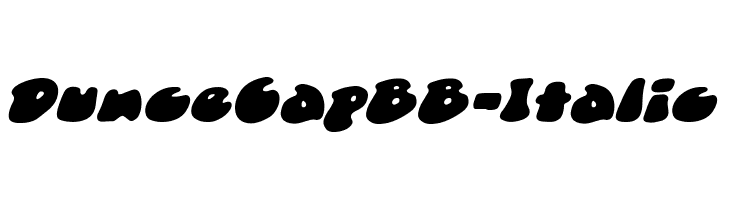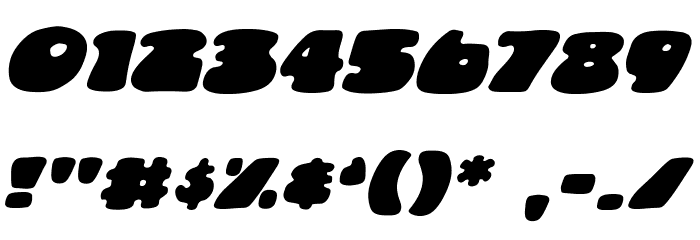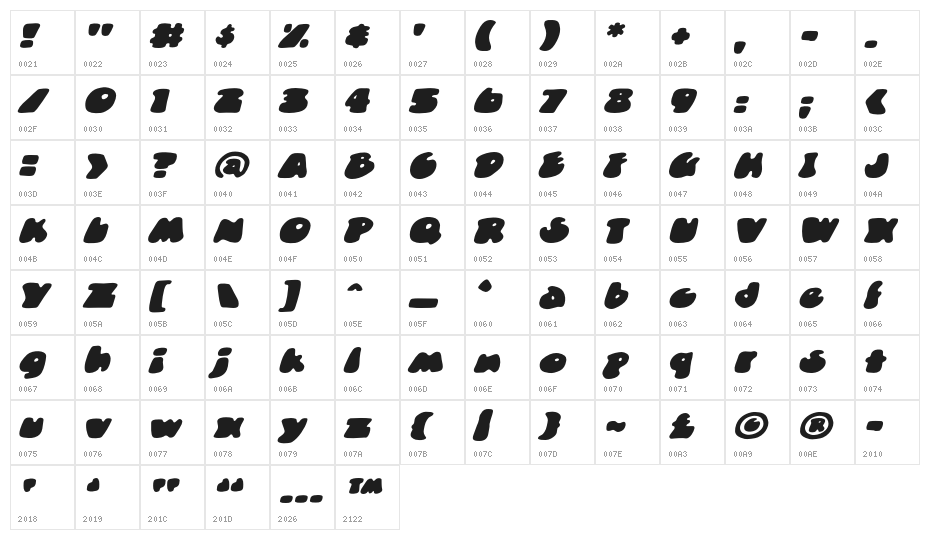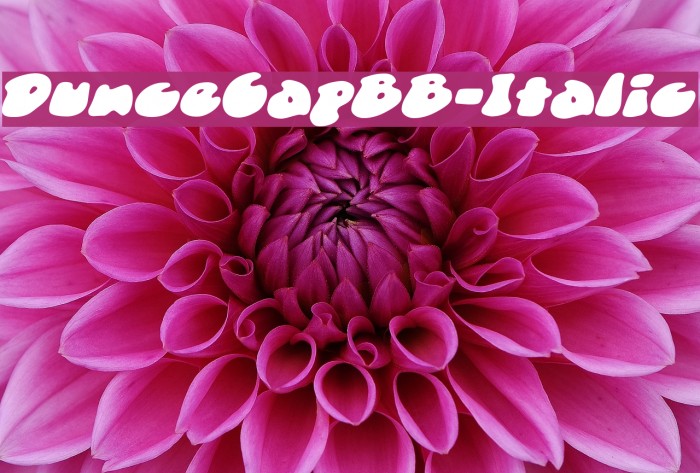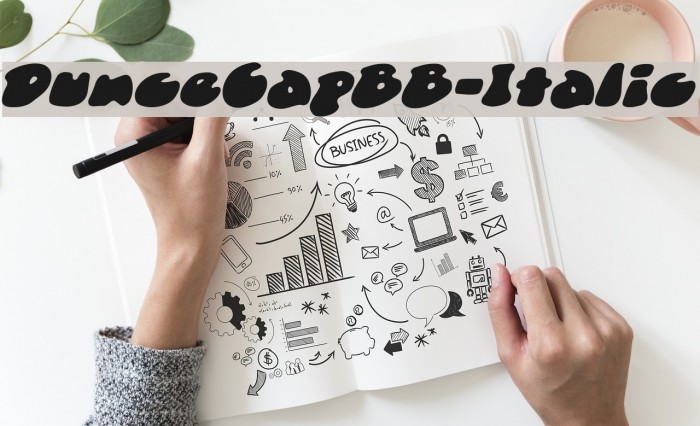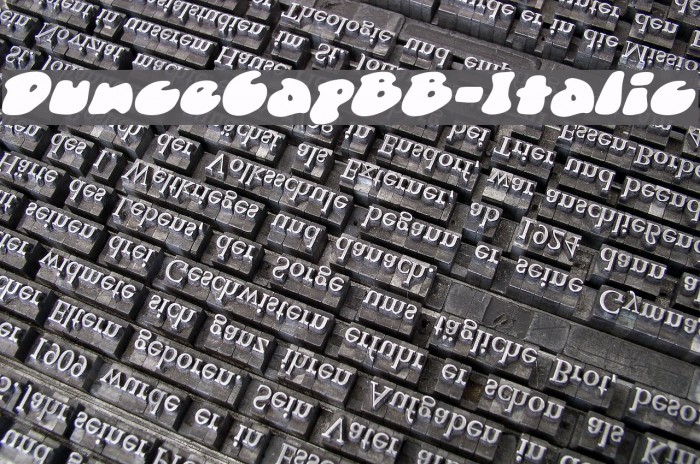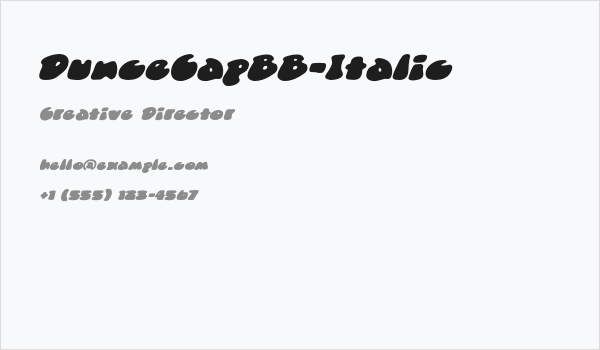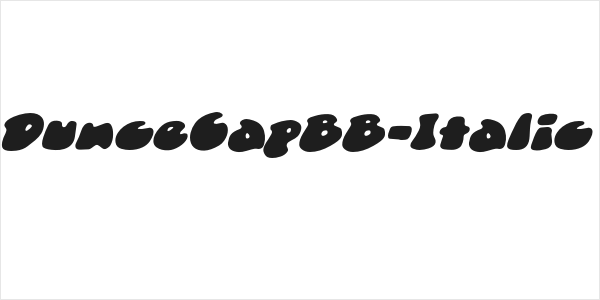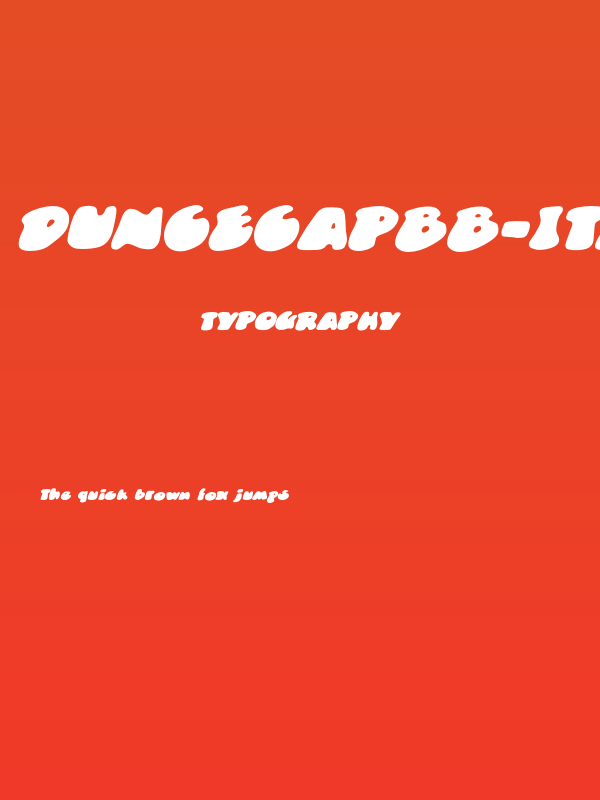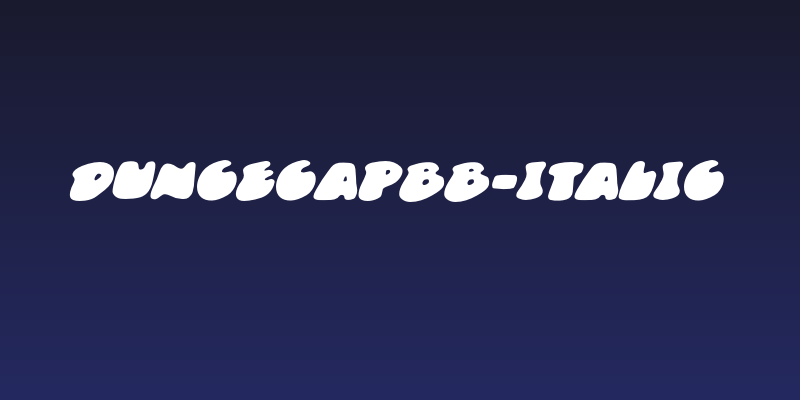
DunceCapBB-Italic Font
DunceCapBB-Italic Description
This playful and bold font features a bubbly, rounded style with exaggerated curves and a whimsical flair. The characters are thick and substantial, giving a sense of weight and presence. The font's playful nature is emphasized by its irregular shapes and the slight slant, adding a dynamic and energetic feel. The uppercase and lowercase letters maintain a consistent style, with the numbers and special characters following suit. This font is ideal for projects that require a fun and informal touch, making it perfect for children's books, playful branding, or creative posters.
Overall StylePlayful, Whimsical, Bold
Proposed ProjectsIdeal for children's books, playful branding, creative posters, and informal designs.